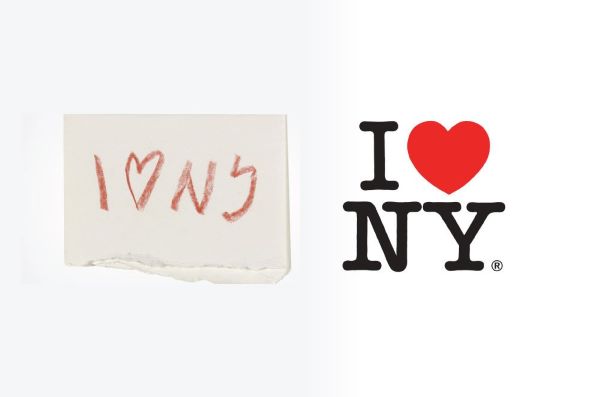
I Heart NY Font
I Heart NY font is a custom-crafted nostalgic font built around one of the most enduring branding campaigns ever created — the iconic “I ❤ NY” emblem designed by Milton Glaser in 1977, originally conceived to revive public pride in New York State during a period of economic hardship and declining confidence in the city. Its warm, monospaced slab-serif character draws closest to ITC American Typewriter Pro Medium, which replicates the vintage charm and approachable weight of the original lettering. The closest free alternative is available for download below.